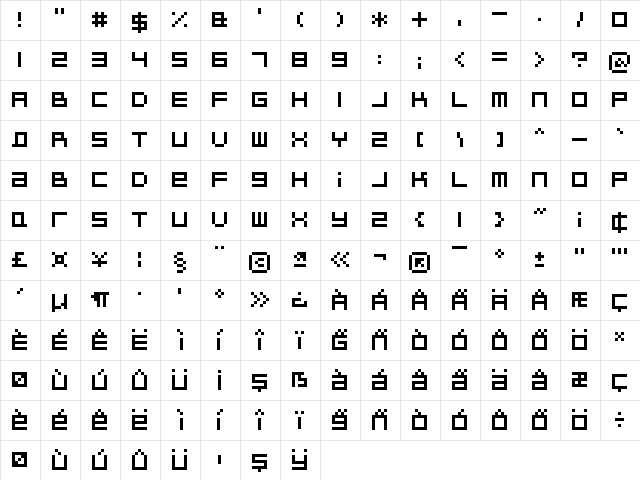
TR BitDust Two Regular
Design Context for TR BitDust Two Typeface
TR BitDust Two offers clean, dependable letterforms without strong stylistic allegiance, making it a practical choice for designers who need flexibility.